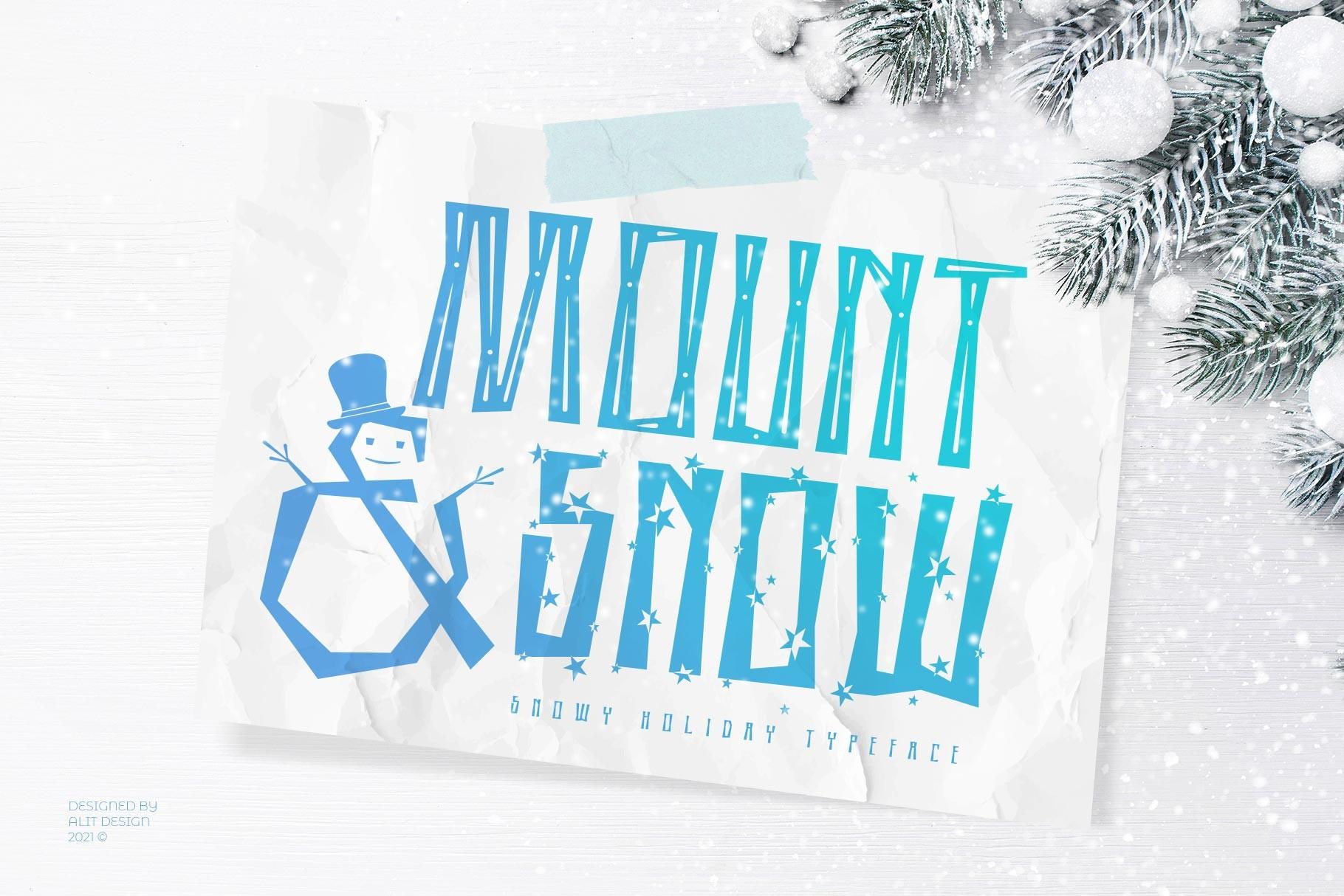
Mount and Snow Font Description
Mount and Snow is a cool, tall and modern display font. Whether you’re using it for crafts, digital design, presentations, or making greeting cards, this font has the potential to become your favorite go-to font, no matter the occasion!